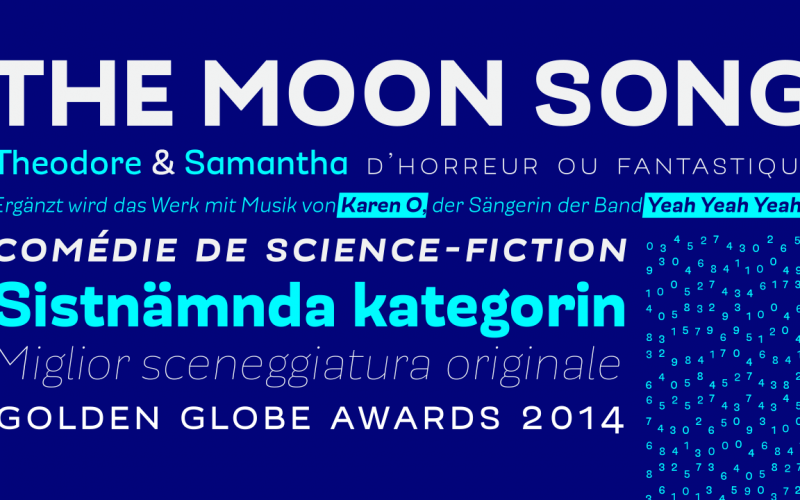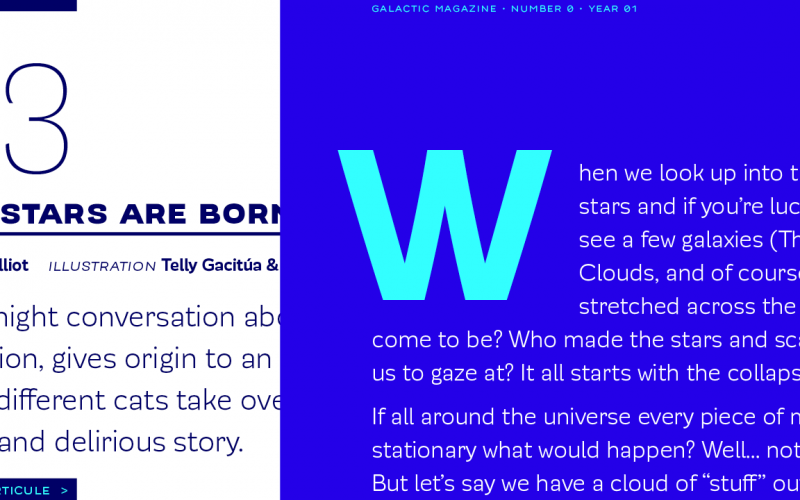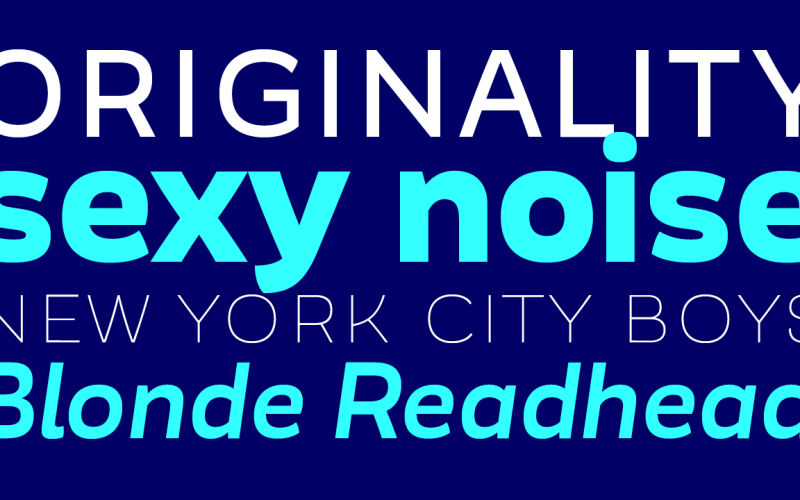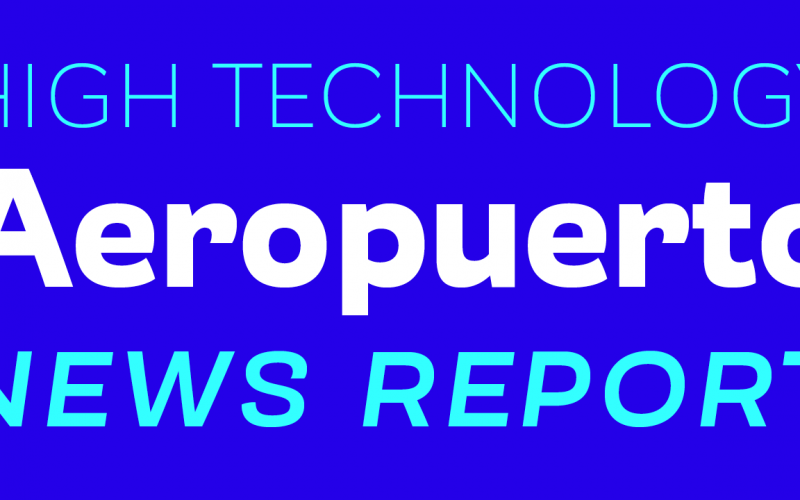
Modernica Font Family
Modernica is an excellent tool that provides a large range of possibilities in design work. It is a sans serif font that contains eight weights plus matching italics. All Modernica typefaces include a set of small caps, ligatures, contextual alternates, modern and old style figures, superscript and subscript, numerators and denominators, among other OpenType features. Modernica is the extension of the Mazurquica family, a condensed grotesque font created to be used in titles looking for impact. Based on the Mazurquica structure, it was designed as a new font for both headlines and continuous text. Modernica seeks to go beyond the grotesque style, — a style that perhaps looks coarse on occasions, maybe for its excessive geometric feel — and instigate a more fluid and friendly structure while remaining solid in its use.
Classification: | Basic, Sans Serif |